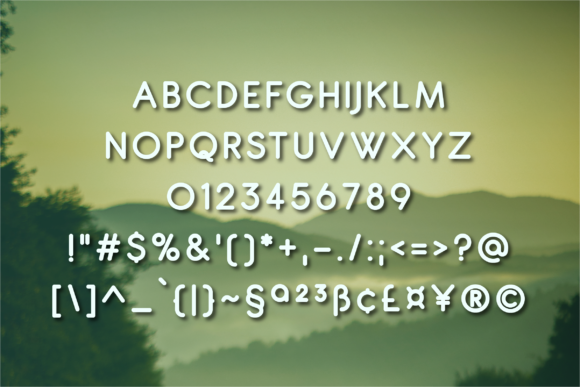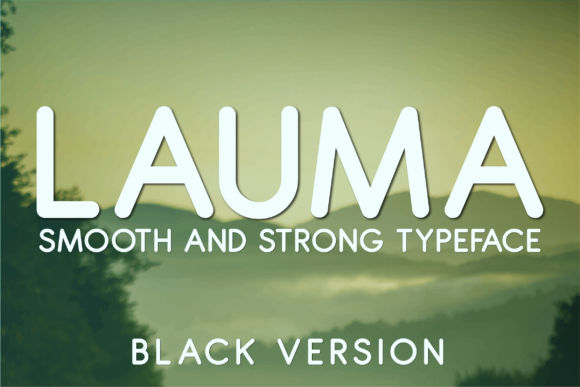
Introduction to Lauma Black Font
Lauma is an equally smooth and strong sans serif font with a friendly vibe.
Its rounded, soft terminals give it a warm and expressive look, and its contemporary style makes it an excellent choice for headlines, logotypes, branding, books, magazines, motion graphics, and much more .